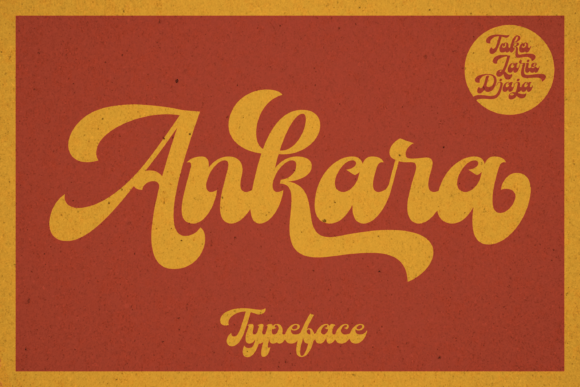
Immerse yourself in a creative journey with Ankara Font, a captivating script font family designed to ignite your imagination. Crafted by the skilled hands of Toko Laris Djaja, Ankara embodies the essence of vintage charm, transporting you back to an era of elegance and grace.
Say goodbye to ordinary fonts and embrace the extraordinary with Ankara's meticulously crafted characters. Each letter dances across the page with a life of its own, adding a touch of whimsy and personality to your designs. Whether you're a seasoned designer or just starting your creative adventure, Ankara will effortlessly elevate your projects to new heights.
With two distinct styles, Regular and Italic, Ankara offers a versatile range of expressions. The Regular style exudes a classic charm, perfect for creating timeless logos, sophisticated headlines, and refined corporate identities. The Italic style, on the other hand, adds a touch of flair and movement, making it ideal for dynamic posters, eye-catching social media graphics, and captivating book covers.
Ankara's versatility extends beyond its styles. Its carefully selected glyphs and swashes, accessible through PUA encoding, provide endless possibilities for customization. Create stunning monograms, add intricate embellishments to your designs, or simply let your creativity flow freely.
Step into the world of Ankara and discover a font that is not just a collection of letters, but an invitation to unleash your creativity. Let Ankara be your guide as you embark on your next design masterpiece, whether it's a captivating poster, a striking logo, or a heartwarming book cover. Experience the magic of Ankara today and let your imagination take flight.